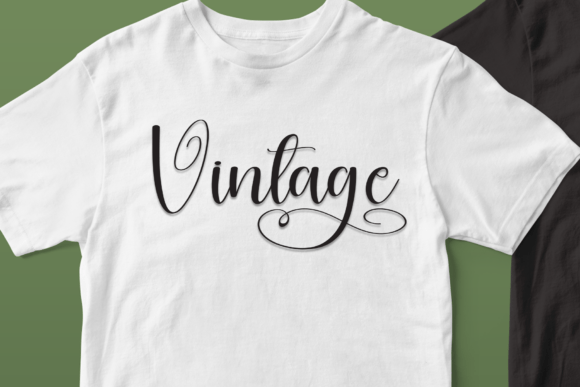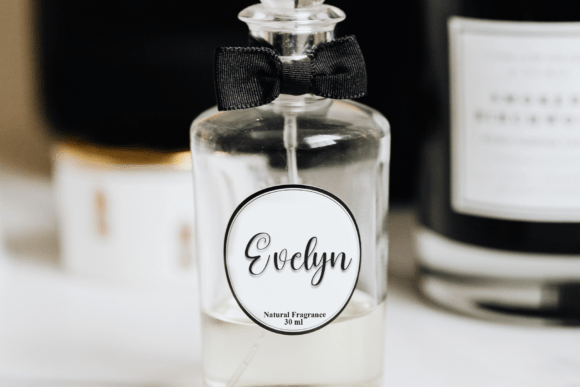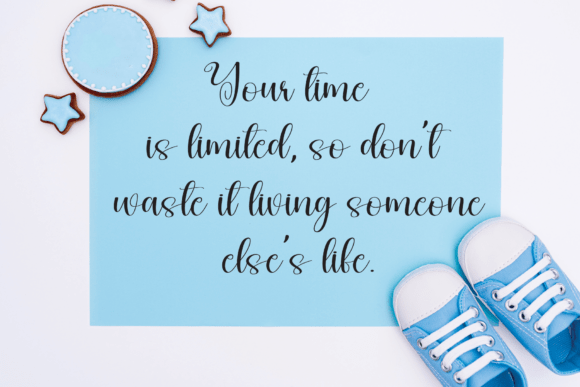
Brighten Font
Brighten is a flowing and elegant script font that captures the beauty of handwritten calligraphy with a modern twist. Its fluid curves and graceful strokes make it perfect for wedding invitations, branding, social media quotes, and stylish stationery. Whether you’re designing for romance or sophistication, this font delivers charm and personality in every letter.